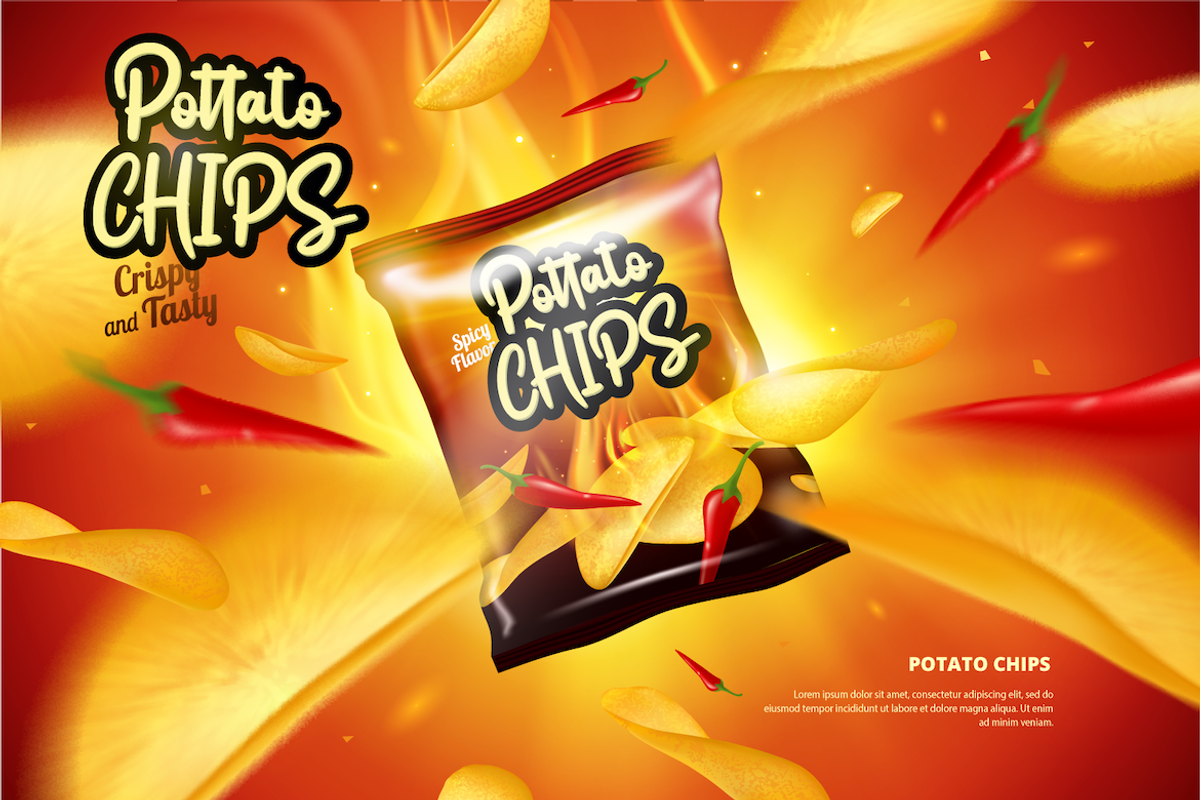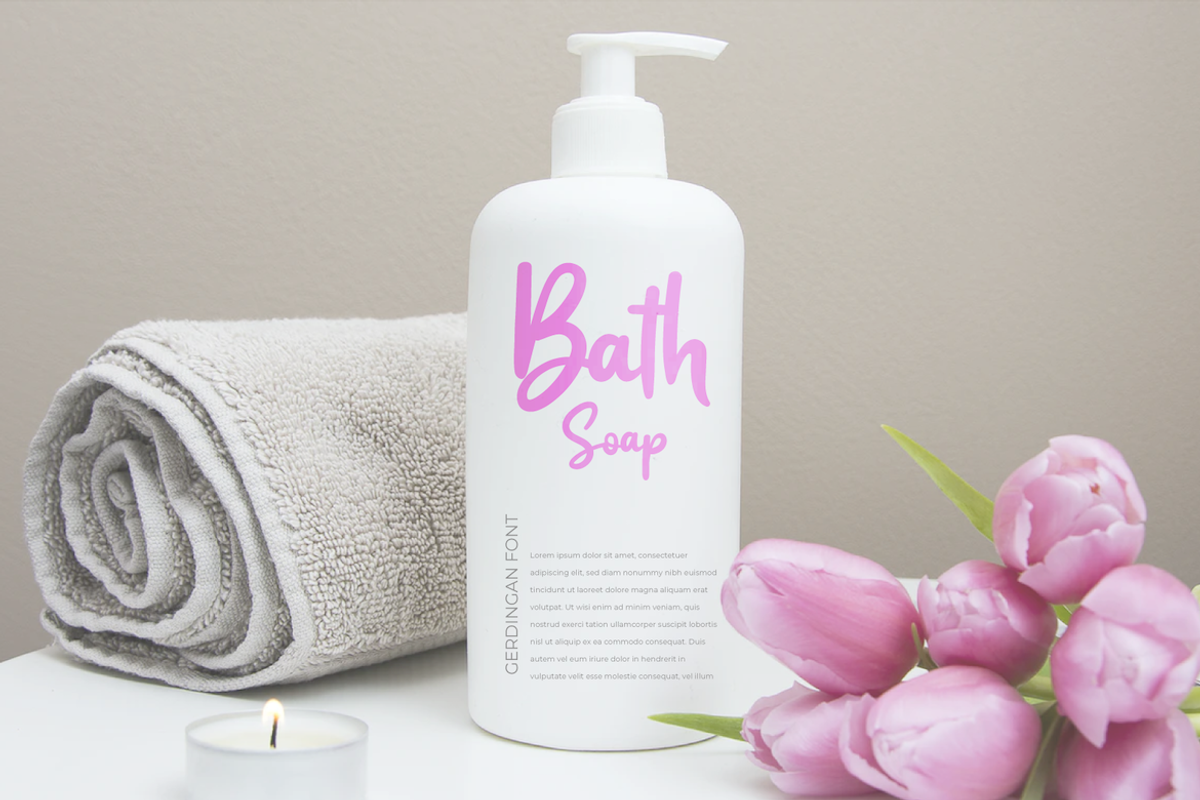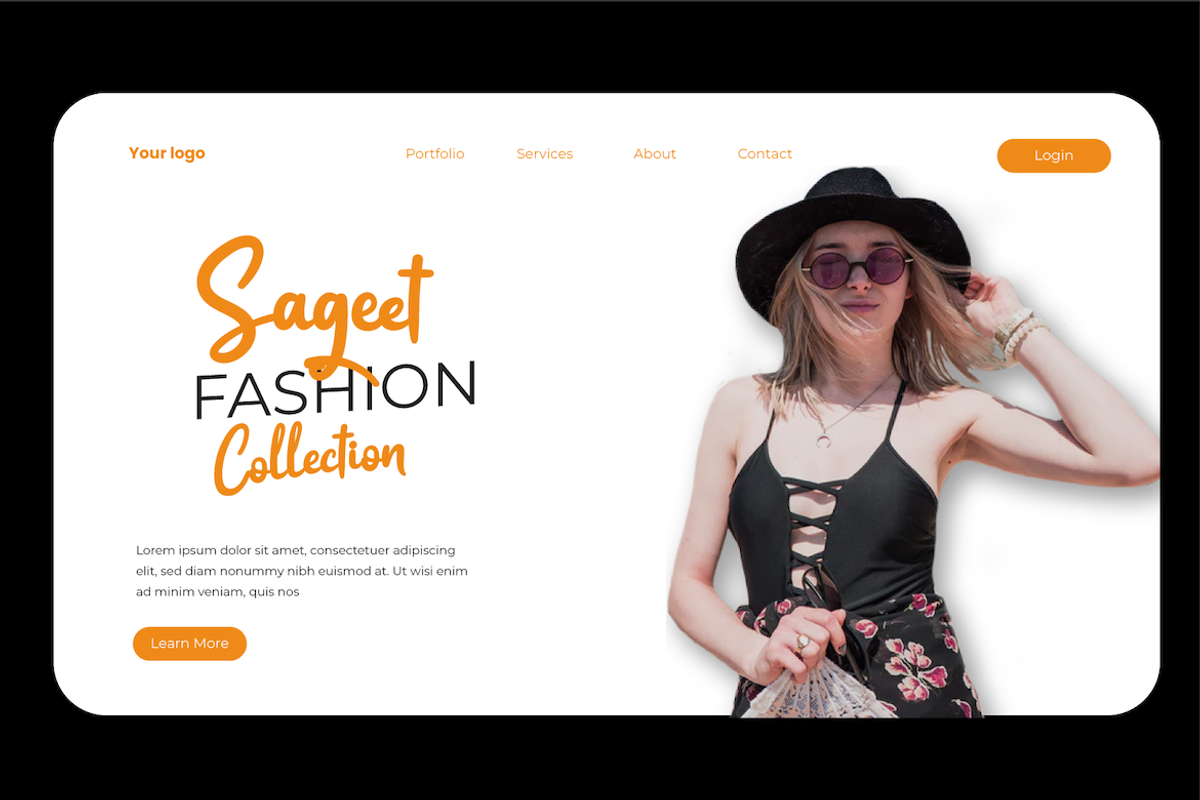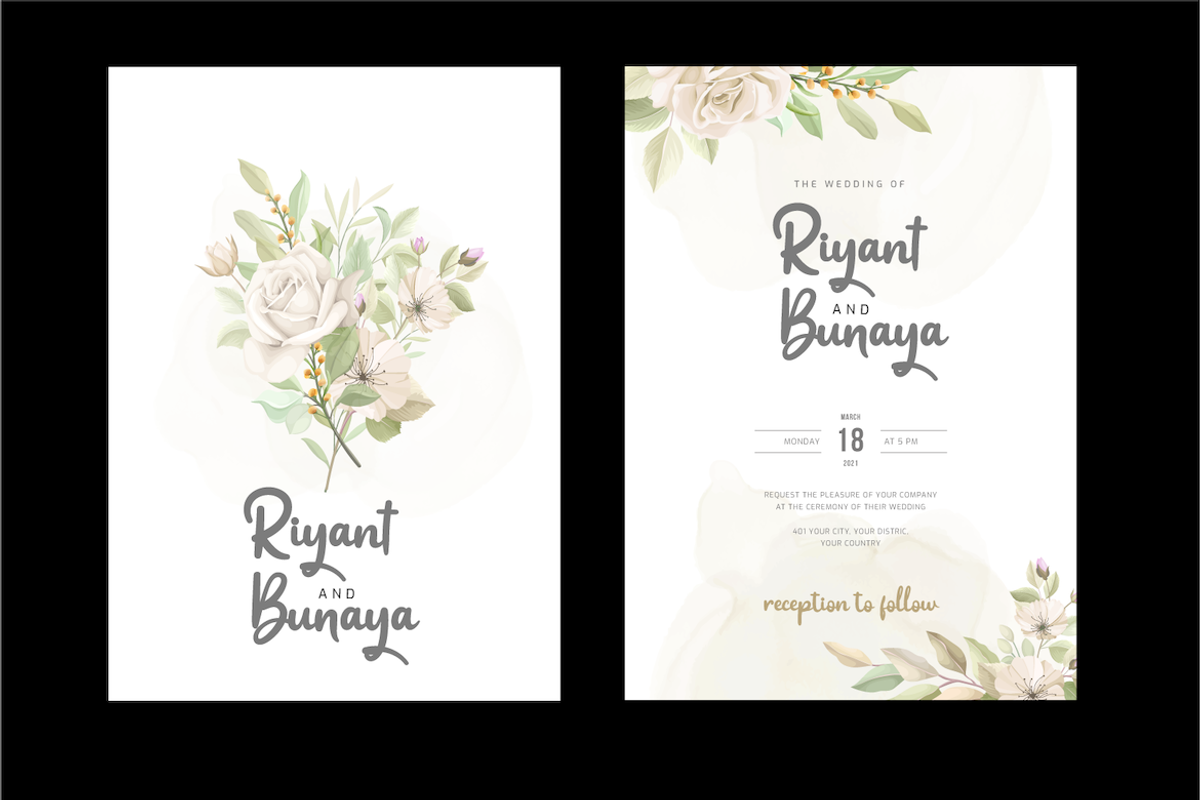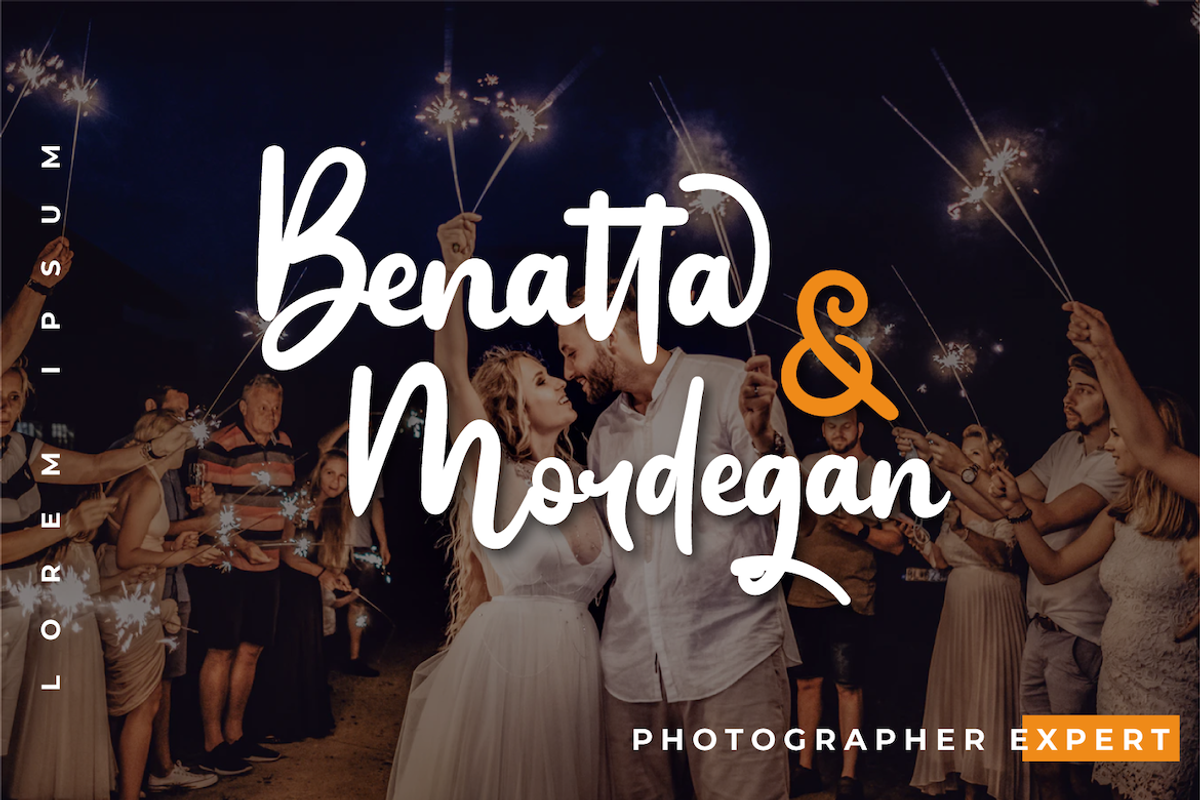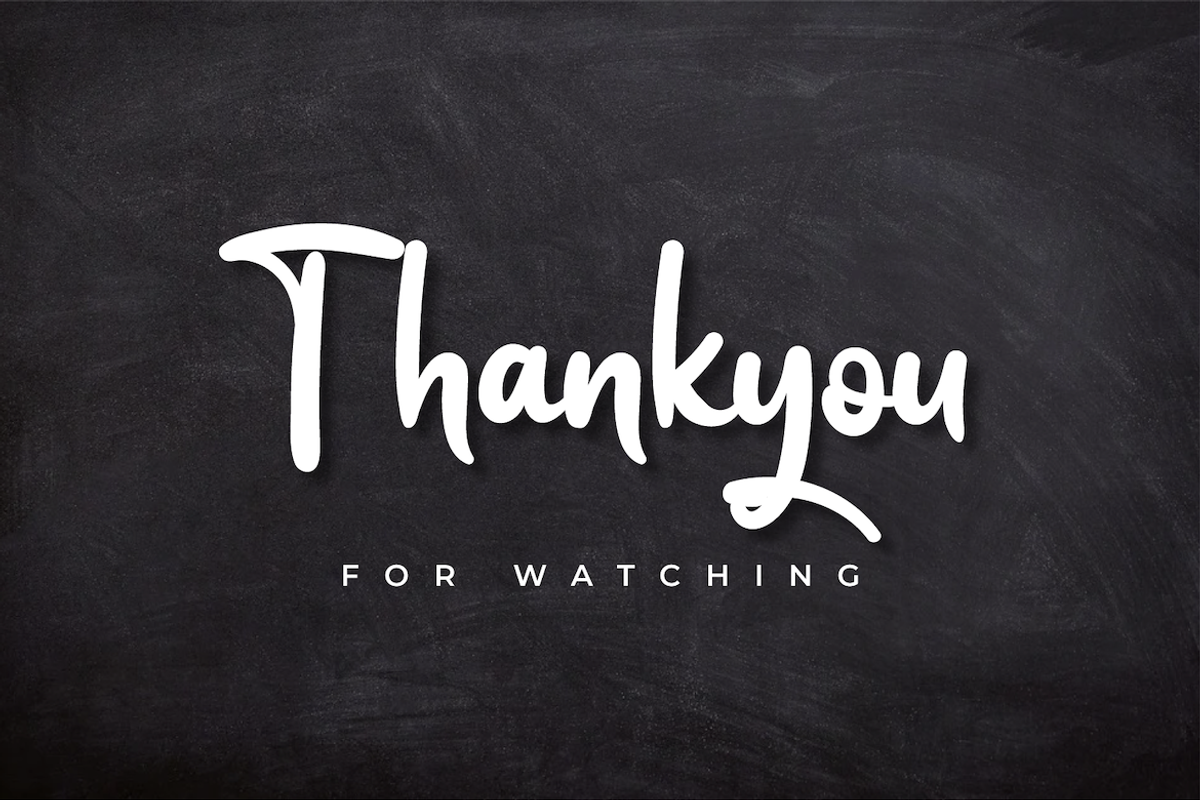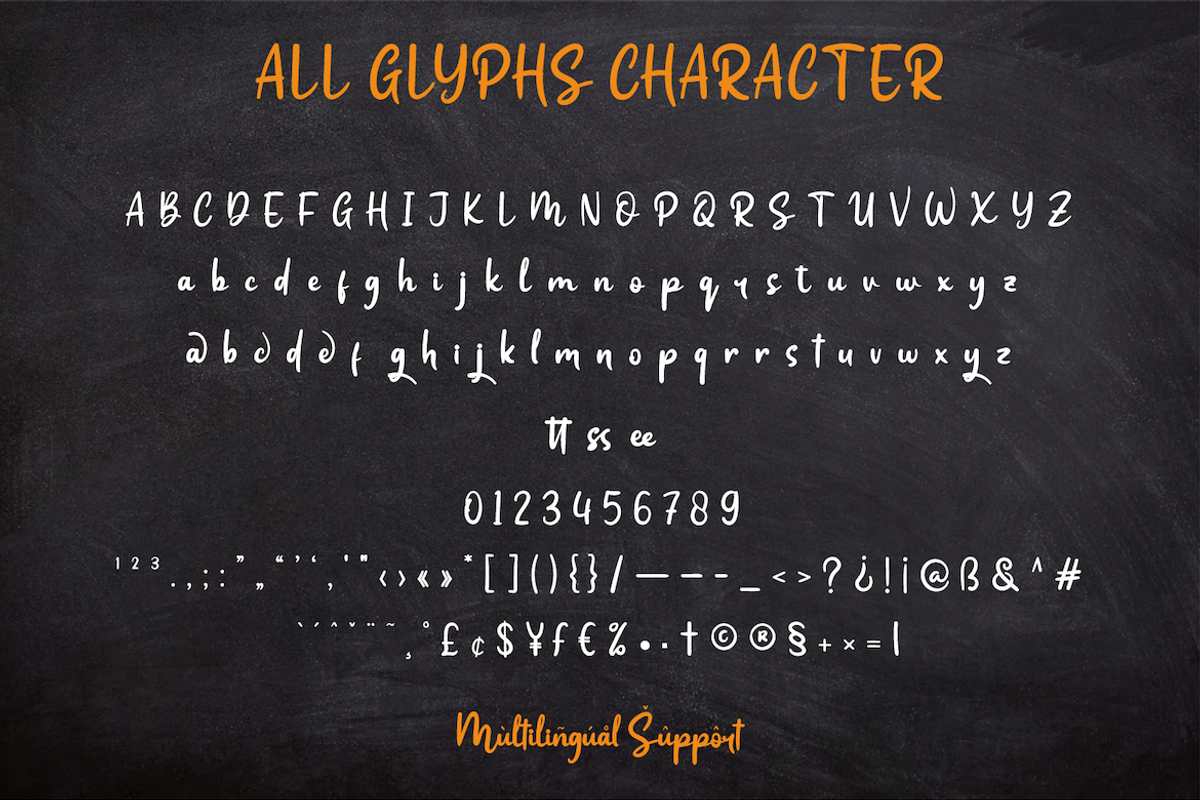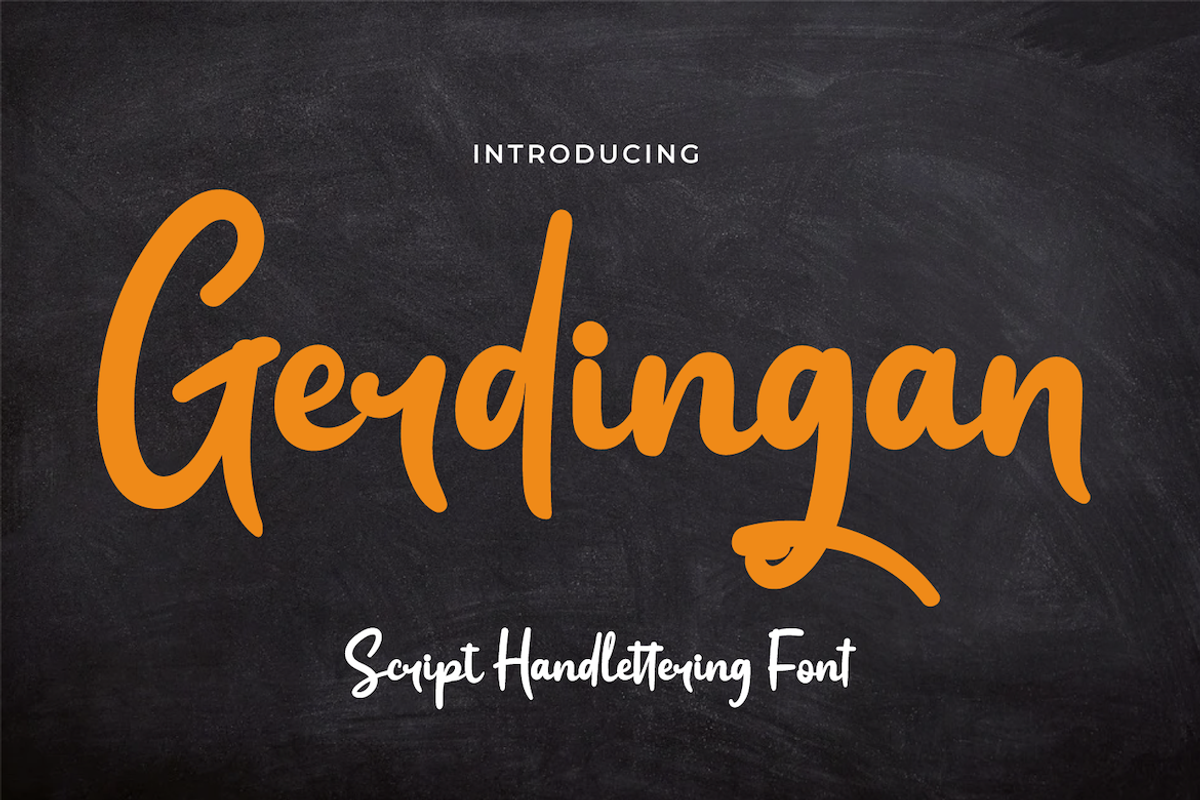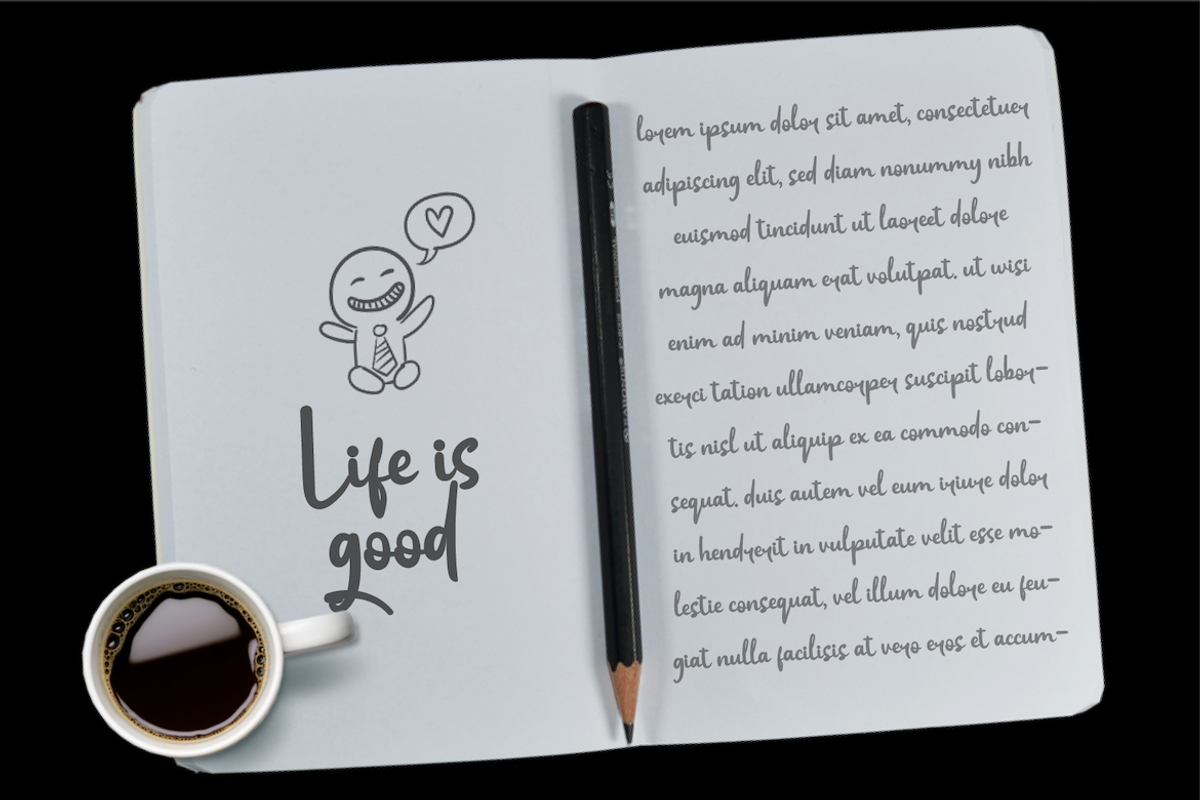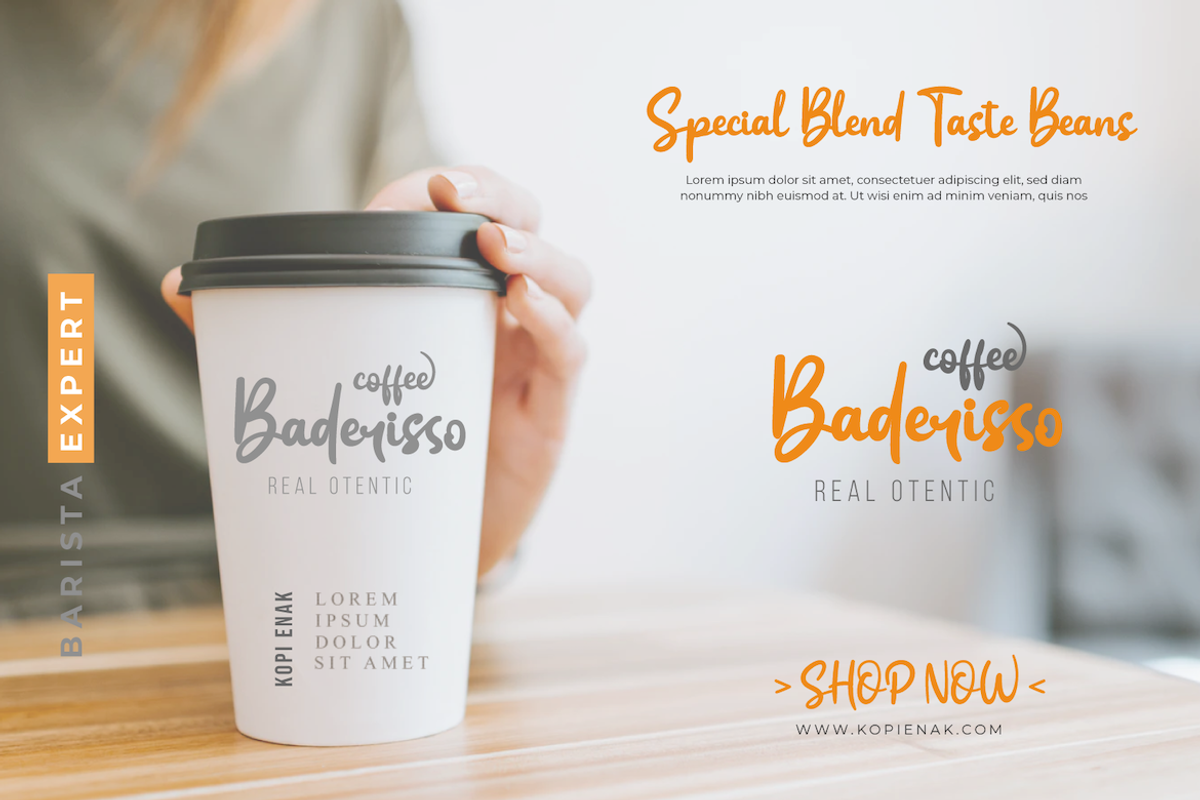
Gerdingan
Introducing our newest Font, the name Gerdingan
fonts are made with a script model that is intended to write beautiful names, and beautiful words and sentences of course with typography harmony.
This font also offers beautiful abstract typography harmony for a wide variety of design projects, including natural handwriting in digital form for designs, quote designs, for social media business designs, advertisements, trademarks, promotional banners, posts, posters, signatures, and all designs require handwriting or whatever design you want.